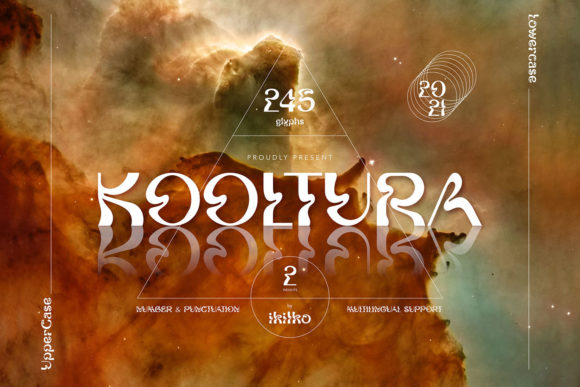
Prepare to be mesmerized by Kooltura, the display font that will ignite your creativity and captivate your audience. Crafted by the renowned ikiiko, this extraordinary font exudes an aura of sophistication and style that is simply irresistible.
With Kooltura at your disposal, the possibilities are endless. Its captivating curves and sharp edges dance harmoniously, creating a visual masterpiece that is sure to turn heads. Whether you're crafting eye-catching posters, captivating headlines, or alluring logos, Kooltura will effortlessly elevate your designs to new heights.
Dive into a world of endless inspiration as you explore the depths of Kooltura's versatile nature. Its bold strokes and dynamic lines lend themselves perfectly to a myriad of projects, from modern and edgy to classic and timeless. Unleash your inner artist and let Kooltura guide you towards design excellence.
Step into the spotlight and let your words shine with unparalleled charisma. Kooltura's inherent magnetism will draw your audience in, captivating their attention and leaving an unforgettable impression. Trust in the power of this remarkable font to transform your creative visions into tangible masterpieces that will resonate with your target audience.
Embrace the allure of Kooltura today and unlock a treasure trove of design possibilities. With this exceptional font by your side, you'll possess the key to unlocking a world of boundless creativity and endless inspiration. Let Kooltura be your guiding light as you embark on a journey of design that will leave a lasting legacy.